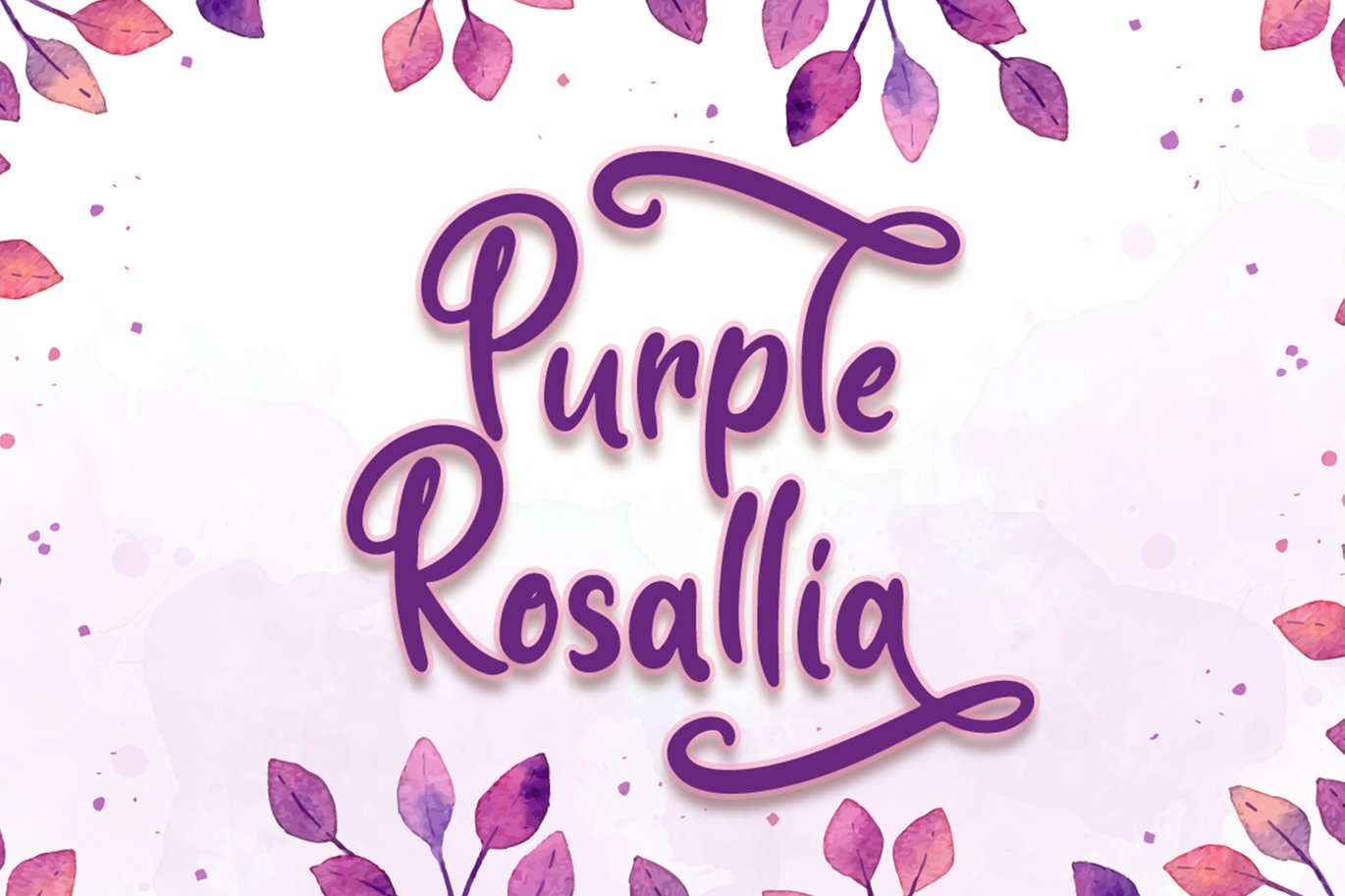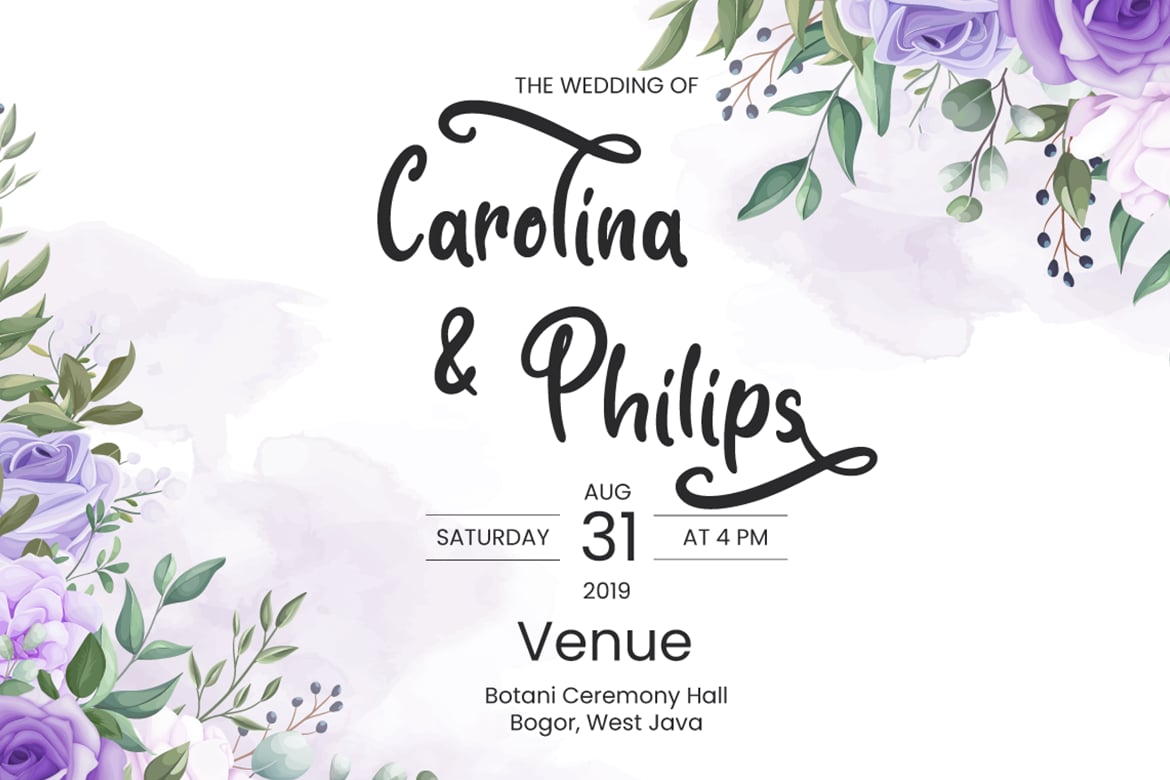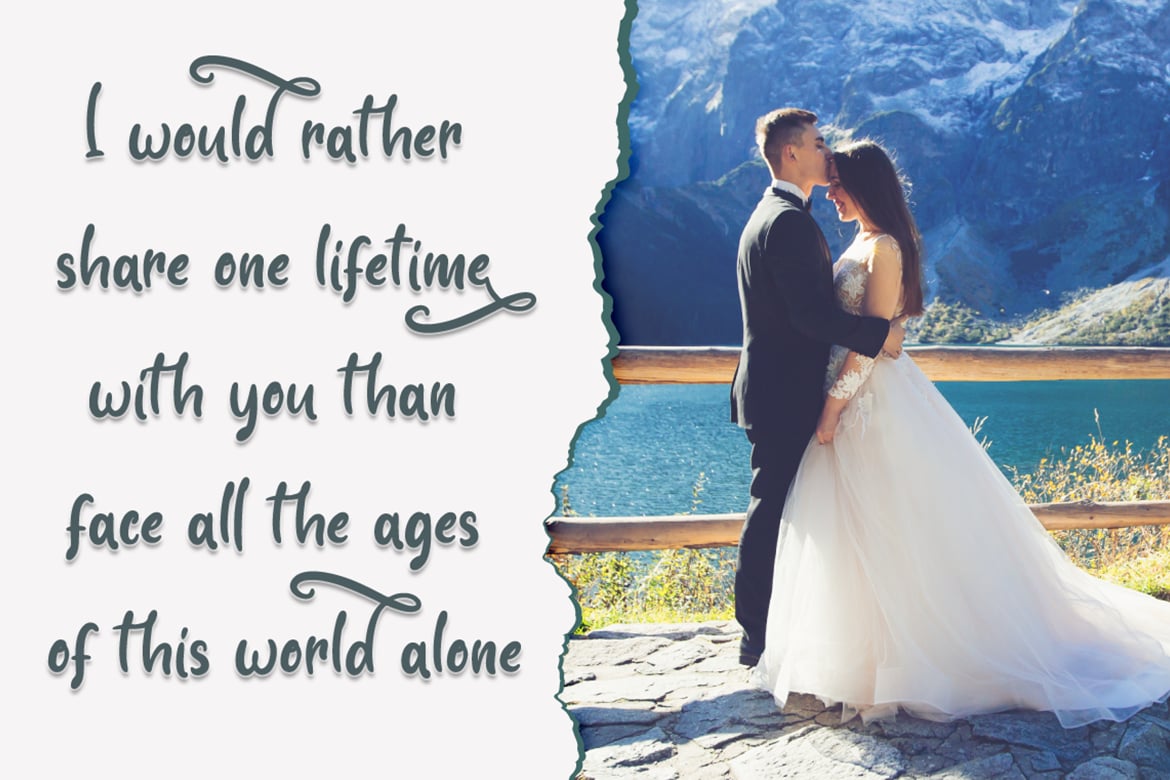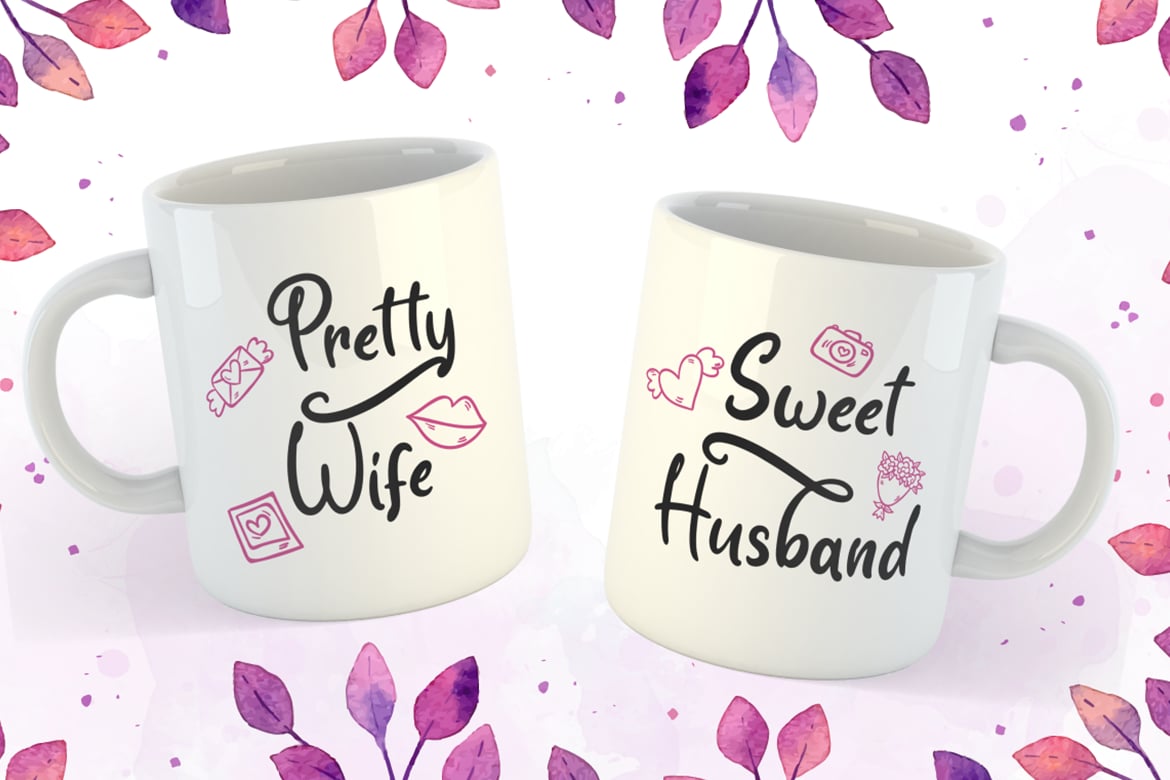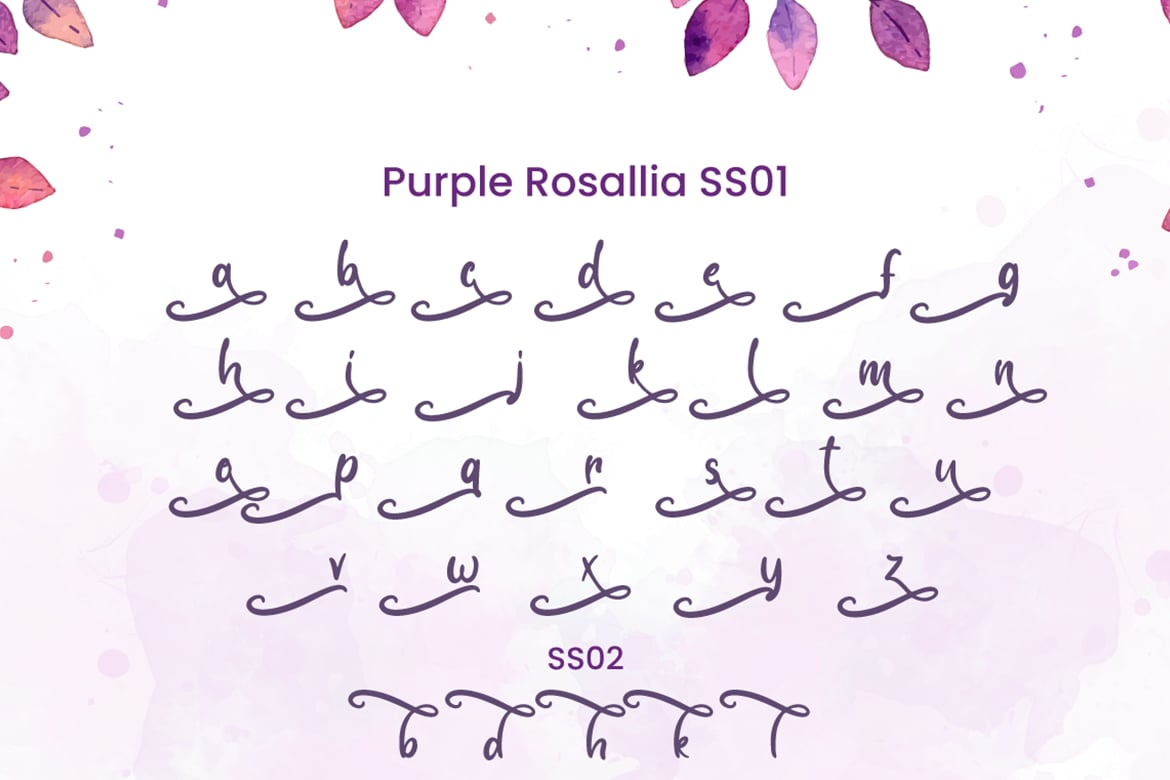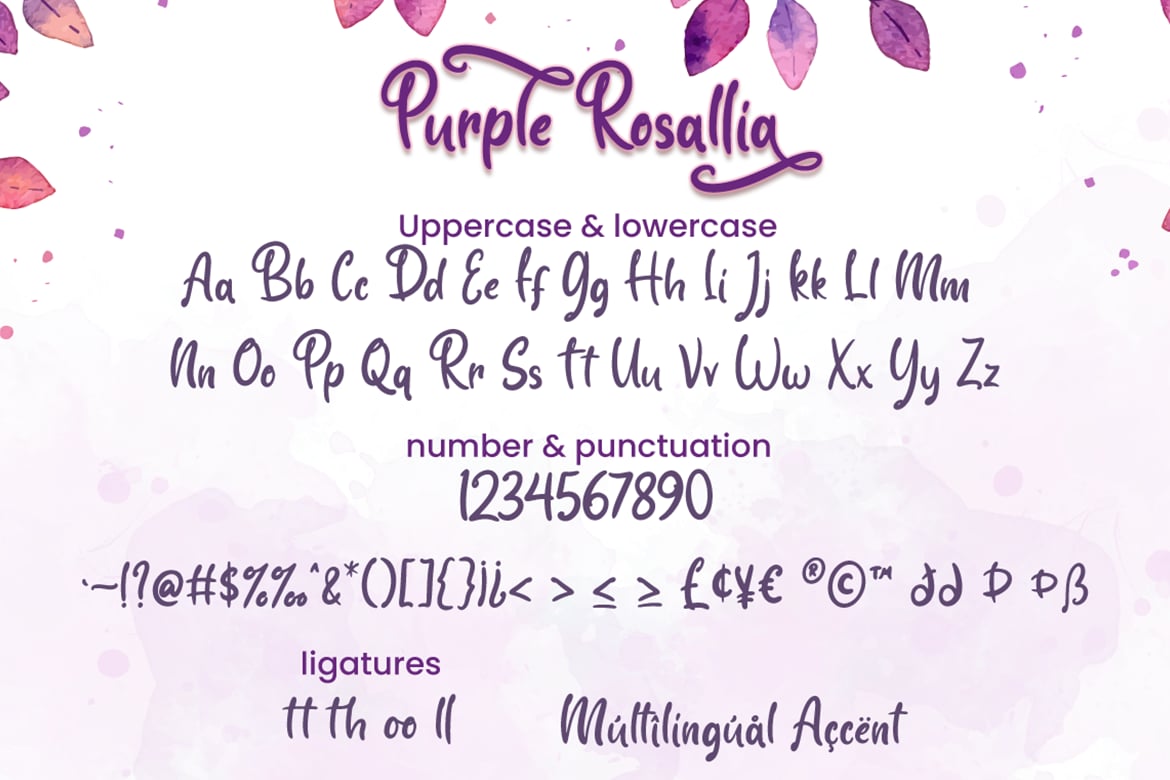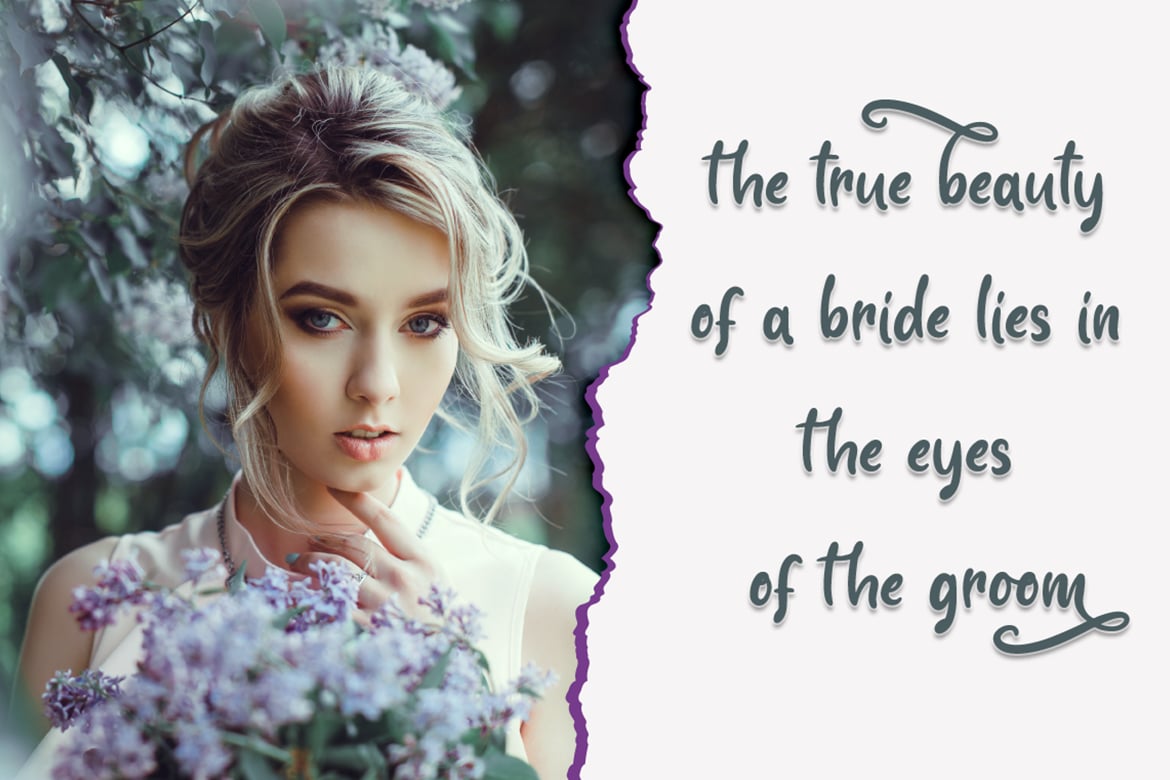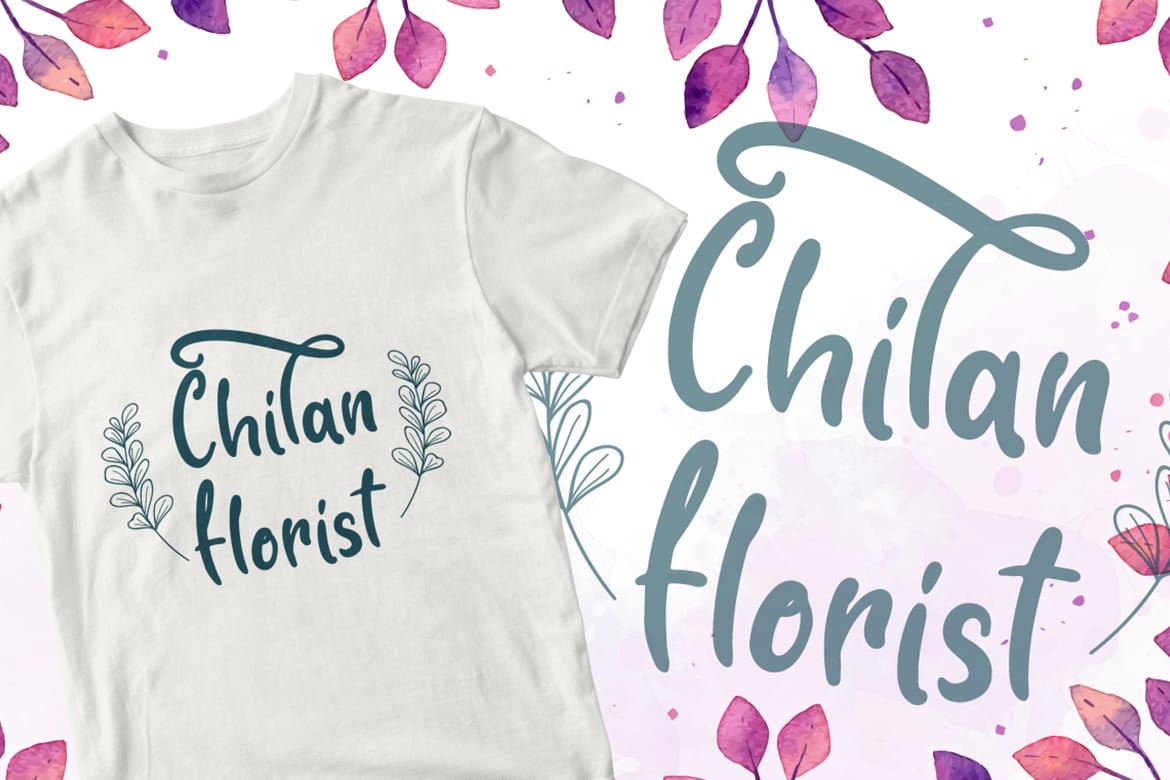
Purple Rosallia – Wedding Font
Purple Rosallia is a delicate lovely font with 2 stylistic set. Fall in love with its incredibly versatile style and use it to create spectacular designs!
Purple Rosallia is perfect for branding, logo, invitation, stationery, social media post, product packaging, merchandise,
blog design, game titles, cute style design, Book/Cover Title and more.
- Beginning & Ending Swash